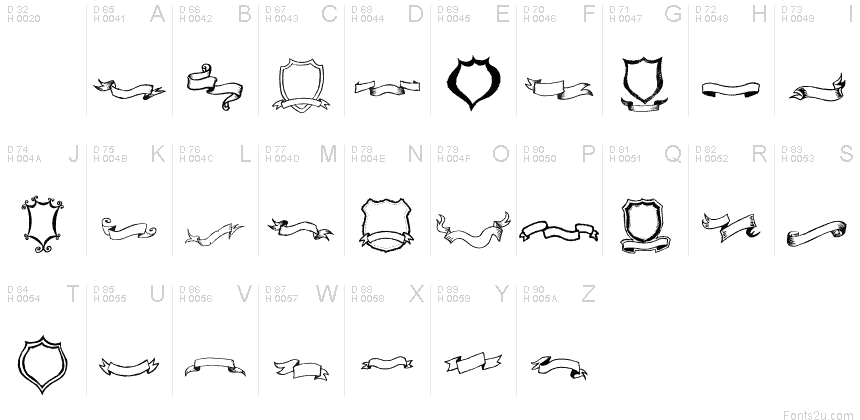
Frames'n Riboons by Imagex is a free ribbon and frame dingbat font built around hand-inked banners, scrolls, and heraldic shields. The symbols have lively, uneven contours, with curled tails, folded ends, pointed notches, and lightly distressed shading that makes each ornament look sketched rather than mechanically polished.
Designers of vintage-themed packaging and event posters can use the blank banners to hold product names or short messages. It also suits brewery labels, certificates, and personalized stationery, since the shield motifs and sweeping ribbons can become ready-made emblems for small businesses, craft sellers, and organizers seeking an old-fashioned hand-drawn finish on commemorative pieces.